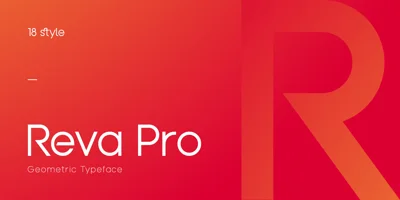
Reva Pro Font
Reva Pro Font is perfect for professional service branding, corporate communications, business consulting materials, premium software interfaces, executive presentations, financial documentation, high-end marketing campaigns, professional publications, sophisticated web design, and enterprise-level business communications.
What makes Reva Pro Font exciting is its professional sophistication that perfectly captures the polished excellence and corporate credibility found in premium business environments and professional service industries. This typeface features refined letterforms with executive proportions and professional details that convey competence, reliability, and the sophisticated professionalism that inspires confidence in business relationships. The font's corporate personality and professional authenticity make it ideal for business brands seeking to project authority, expertise, and the executive presence that comes from proven professional excellence and business leadership.
Reva Pro Font family includes comprehensive weight variations and professional alternatives that enhance its business appeal while providing complete design flexibility for corporate and professional applications. The font features executive ligatures, business-themed ornaments, and professional character variations that create authentic corporate atmosphere for business and professional services branding.
Professional service firms and corporate organizations consistently choose Reva Pro Font for projects requiring authentic professional appeal and business credibility. The font's sophisticated character excels in applications targeting business executives, professional consultants, and corporate decision-makers who appreciate genuine business expertise and professional excellence. Whether you're designing for consulting firms, financial services, or executive programs, this polished typeface delivers the professional authenticity and corporate sophistication that resonates with audiences seeking genuine business competence and the executive excellence that defines professional leadership and business success.